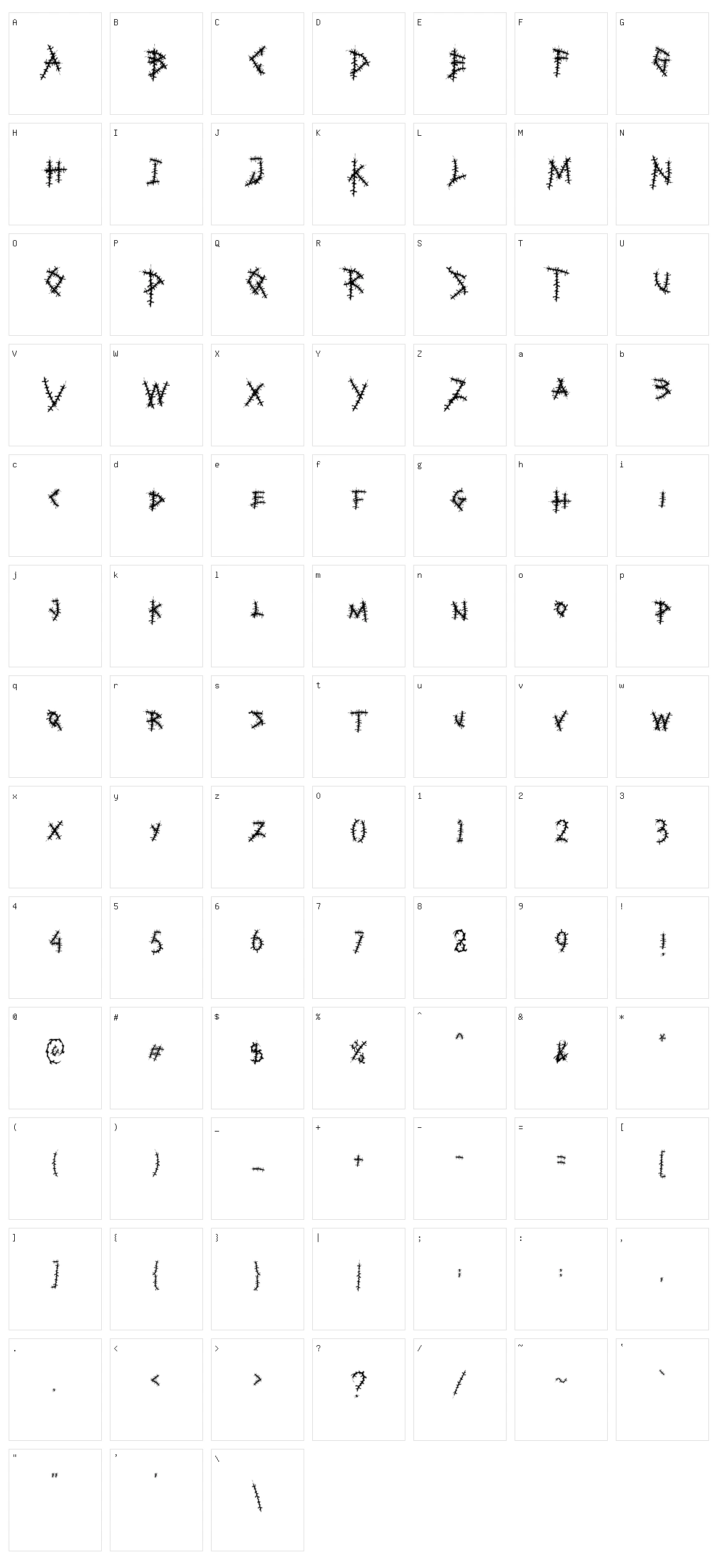
The free font Moral Impact is carefully designed by Lettersiro Studio, showcasing a thoughtful balance of creativity and usability and falls under the Horror font style. When you download the ZIP file, it contains only 299.18 KB of font files, making it lightweight and quick to download. Please review the license details below to understand permitted usage and distribution rights. If license information is not available, we recommend using this font for personal projects only or contacting the author directly for commercial usage permissions.